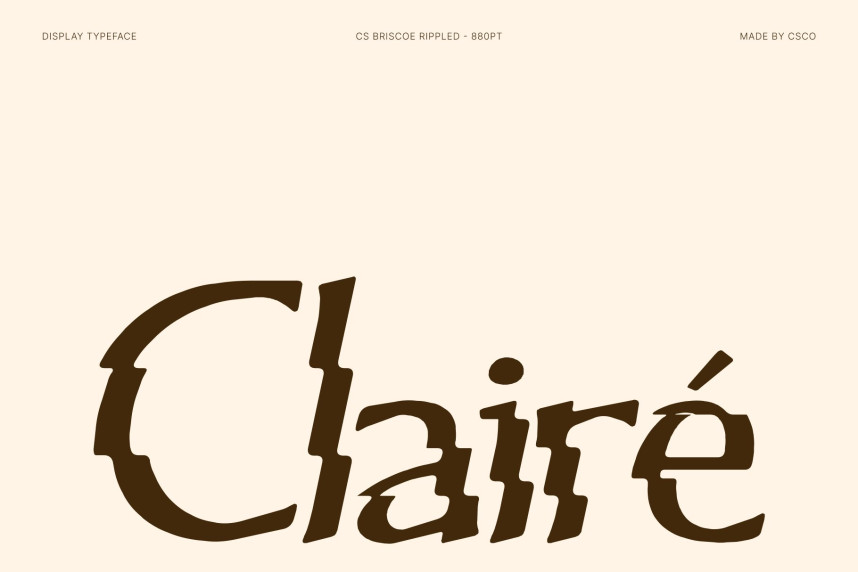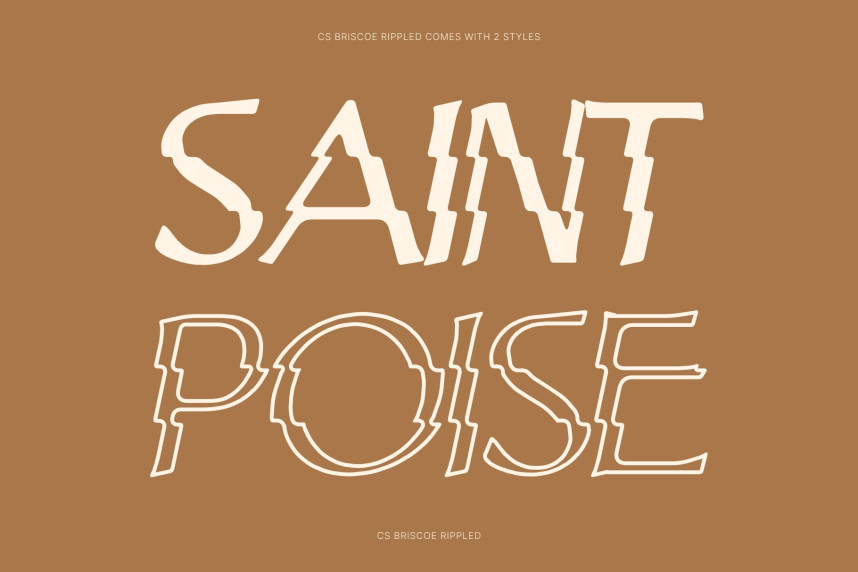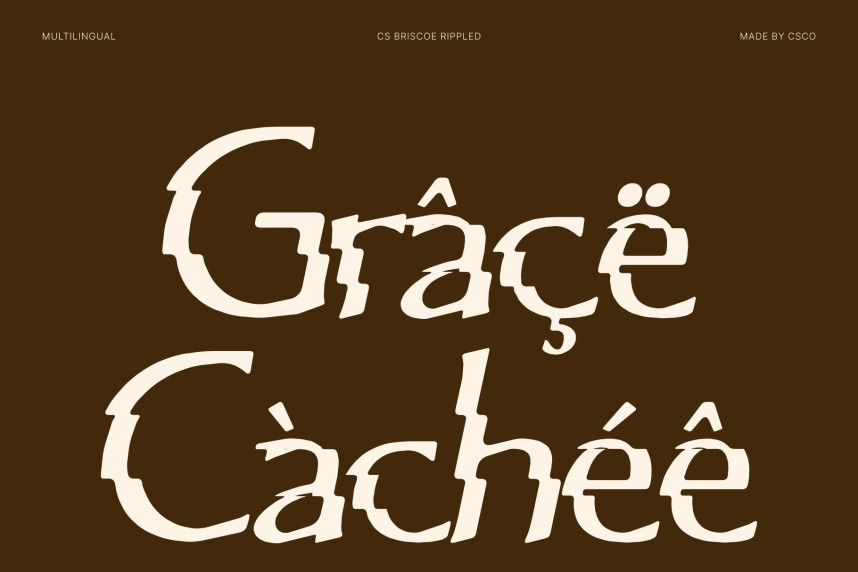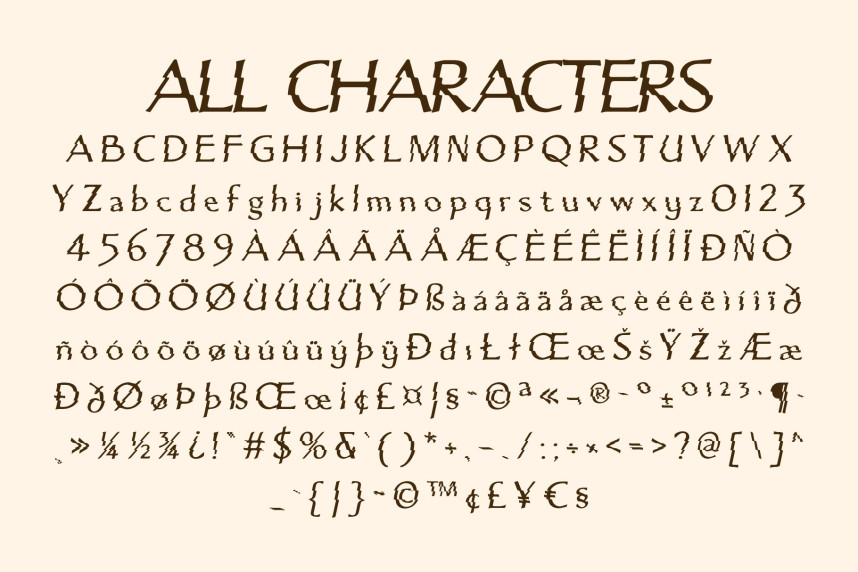
CS Briscoe Rippled Font
CS Briscoe Rippled Font – Modern Serif Font: Where Refined Luxury Meets Fluid Motion
Timeless Sophistication with Refined Elegance
This font is a modern serif font that embodies refined elegance and timeless sophistication. Its graceful letterforms, balanced proportions, and delicate serif details create a luxurious visual presence that feels both classic and contemporary. Designed to communicate prestige, beauty, and professionalism, it brings a polished character to any design composition.